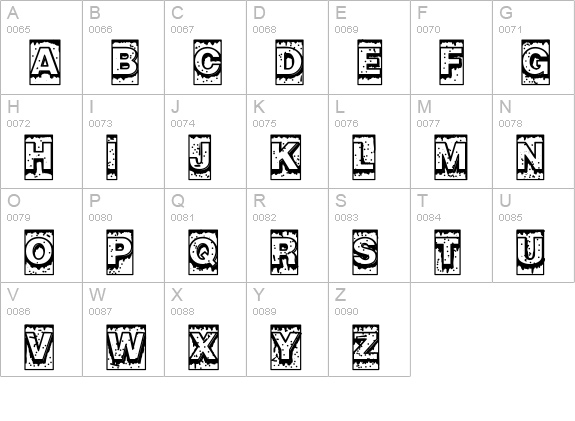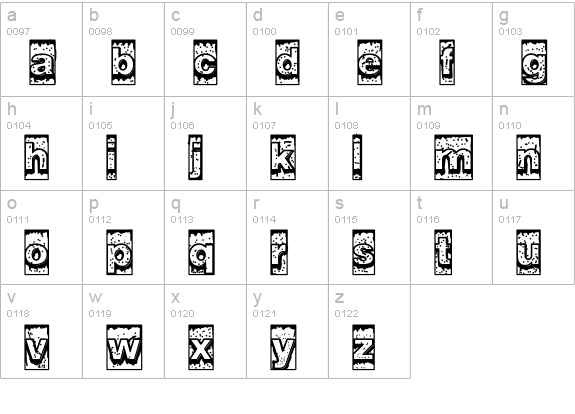
Swamp Type Font Details
Swamp Type font is a unique and captivating typeface inspired by the mysterious and untamed beauty of swamps. With its organic shapes and flowing lines, this font exudes a sense of intrigue and enchantment. The Swamp Type font is perfect for adding a touch of nature-inspired charm to your designs, whether you're creating posters, logos, or branding materials. Best of all, Swamp Type font is available for free download at FontsMarket.com, making it accessible to designers and creatives everywhere. Embrace the wild allure of the swamp with this one-of-a-kind font and bring a touch of natural magic to your projects.